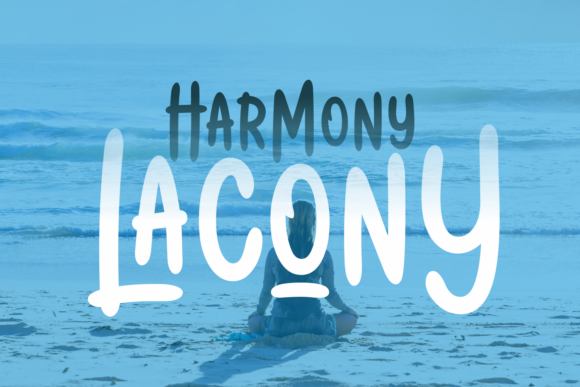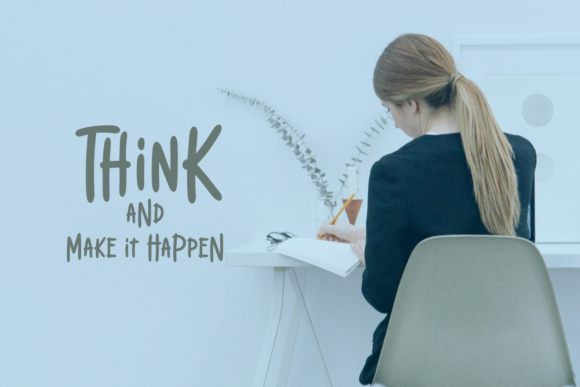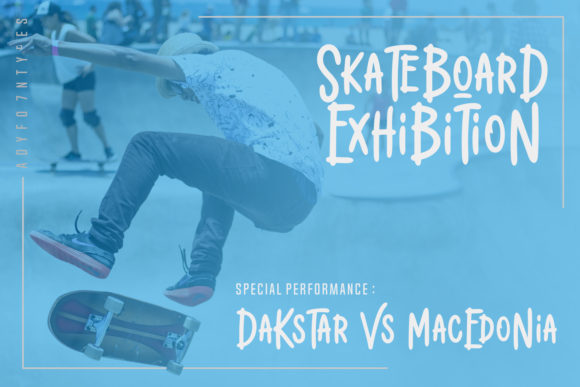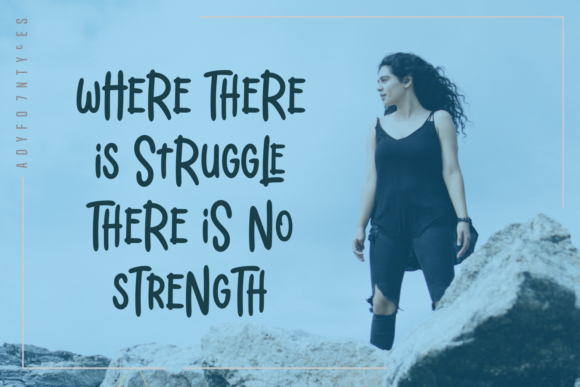
Harmony Lacony Font
About Harmony Lacony Font
Harmony Lacony is a beautiful and light handwritten font with an incredible feel. Get inspired by its unique vibe, and add an authentic spark to any design project!